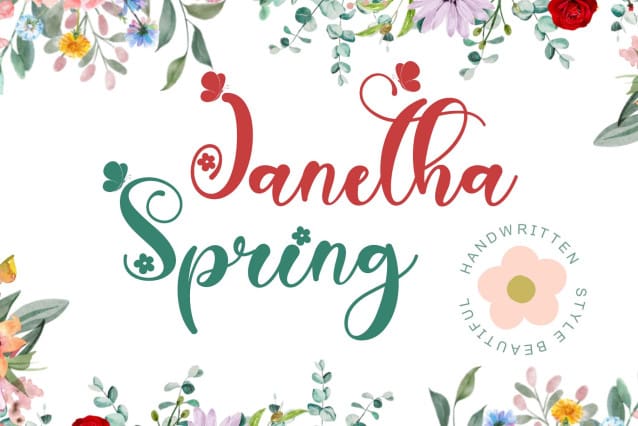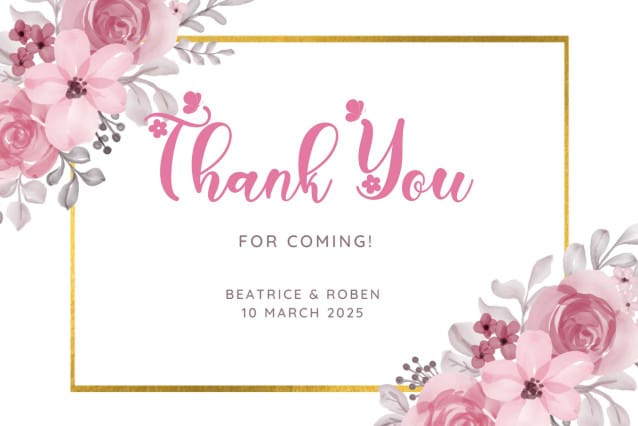
Janetha Spring Font
Janetha Spring Font is a beautiful and beautiful handwritten font. This font is equipped with uppercase, lowercase, numerals, punctuations, ligatures and multilingual support. Very suitable for spring, summer, weddings, invitations, logos, posters, stickers, banners, branding and others.